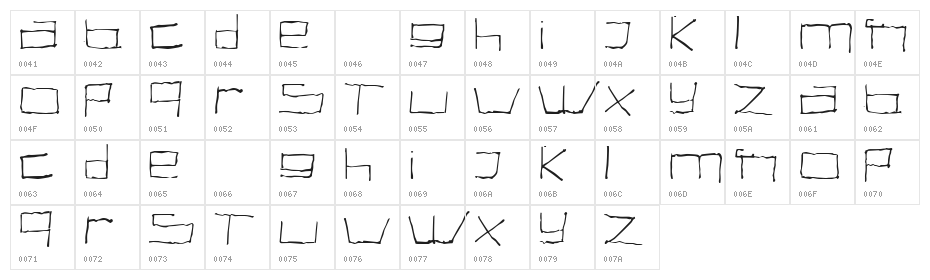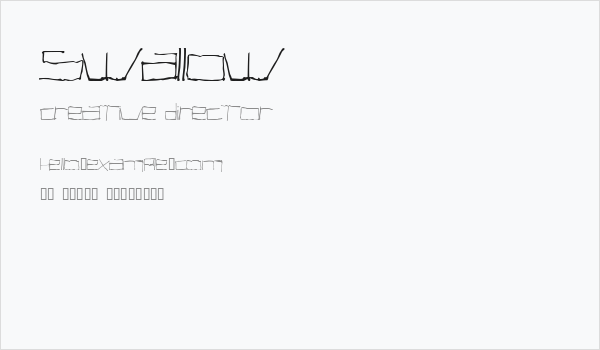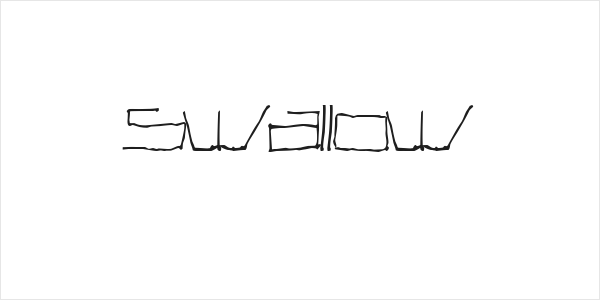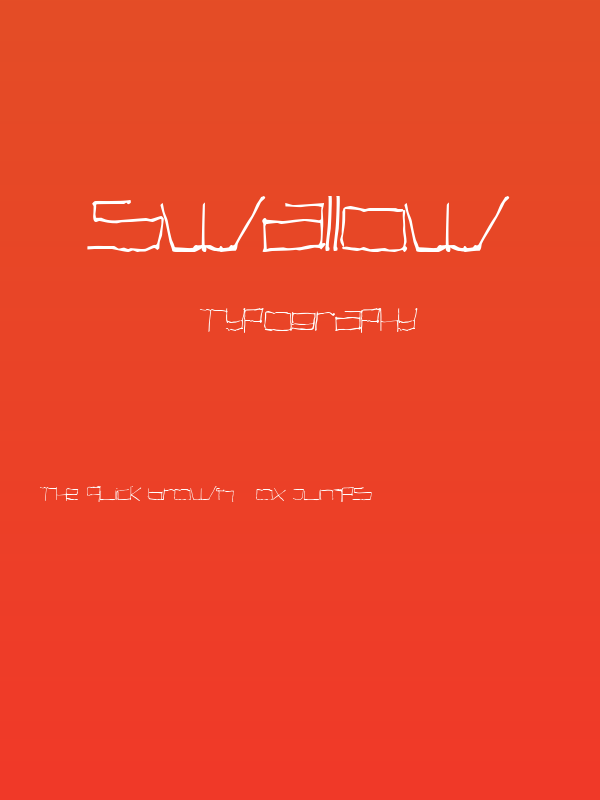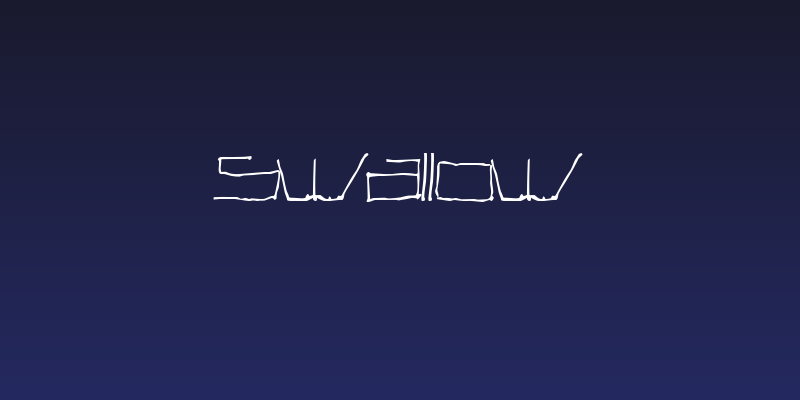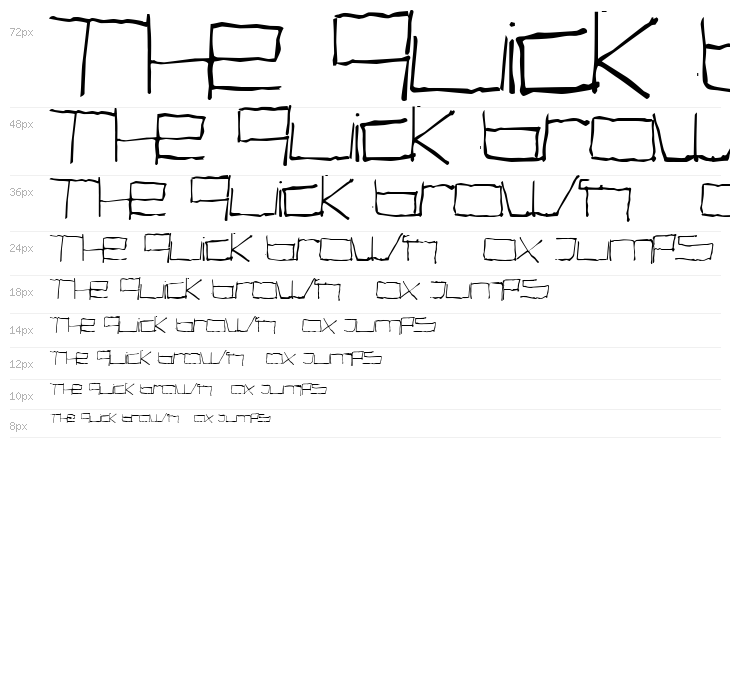
swallow Font
swallow Description
This font features a unique, hand-drawn style with an organic, slightly irregular appearance. The characters are elongated and thin, with a sketch-like quality that gives them a whimsical and artistic feel. The uppercase and lowercase letters maintain a consistent height, creating a uniform look across the text. The numbers and special characters follow the same design principles, ensuring cohesion throughout. This font's distinctive style makes it stand out, offering a creative and unconventional option for various design projects.
| Overall Style | Artistic |
| Use Case | Logos, Invitations, Artistic Projects |
| Proposed Projects | Ideal for artistic projects, creative branding, children's books, and unique invitations. |